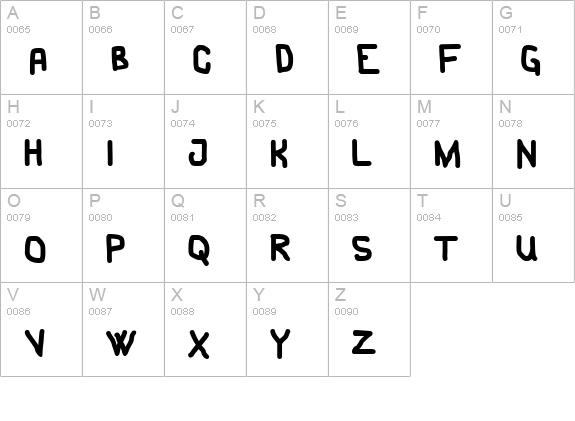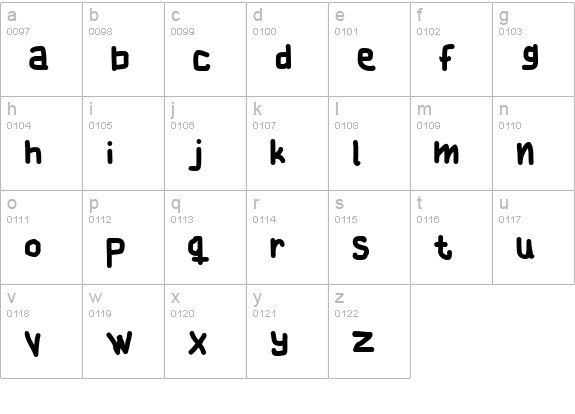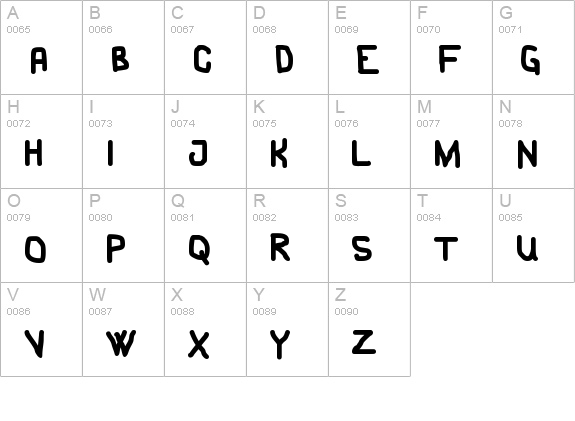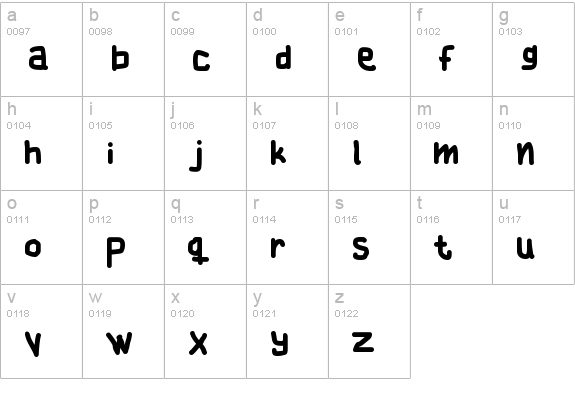
Cake! font is a delightful and whimsical typeface that is sure to add a touch of sweetness to any design project. With its playful curves and charming details, Cake! font is perfect for creating eye-catching headlines, invitations, and more. This fun and unique font is free to download at FontsMarket.com, making it easily accessible for all your creative needs. Let Cake! font be the icing on the cake for your next design project!